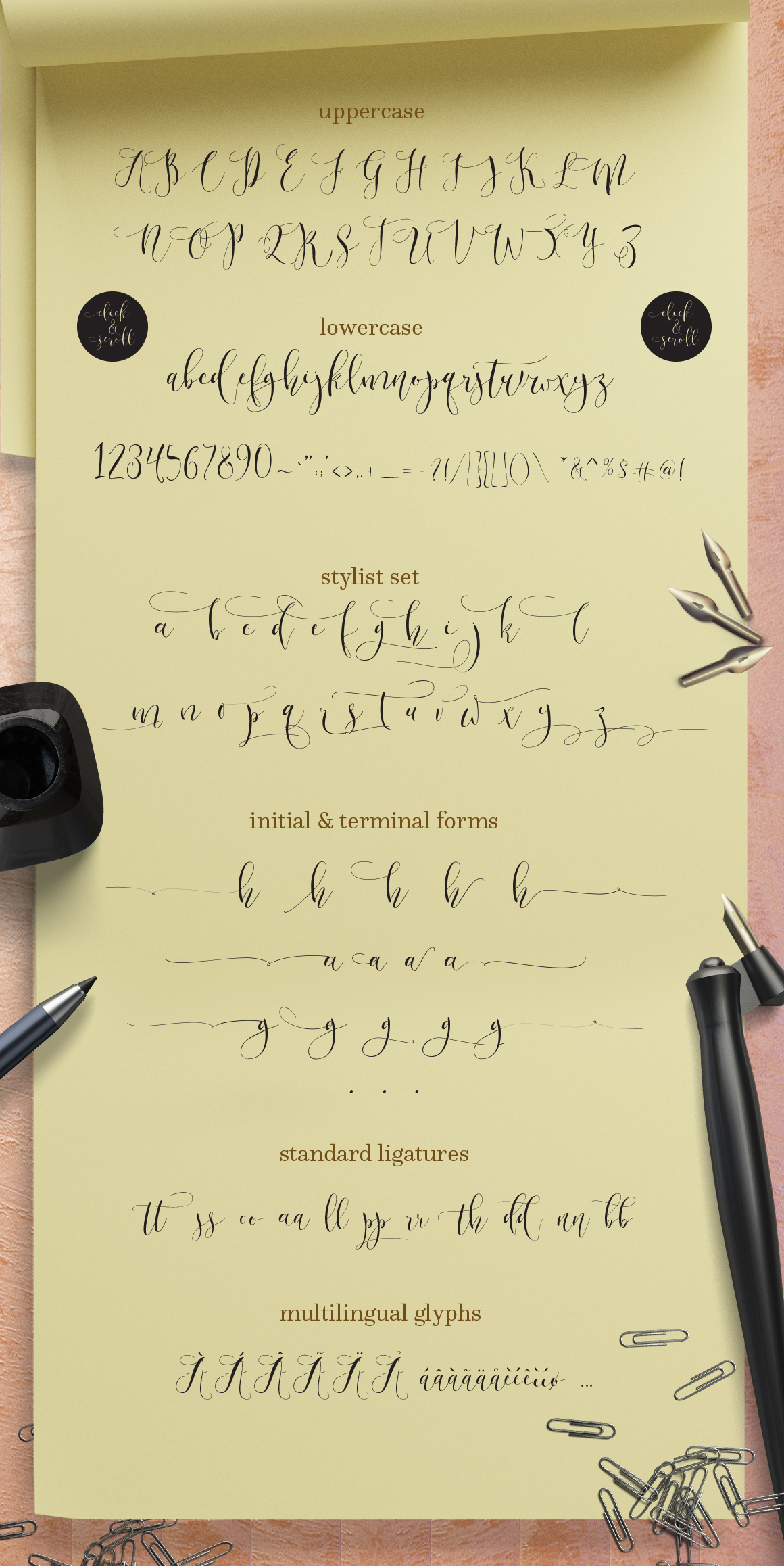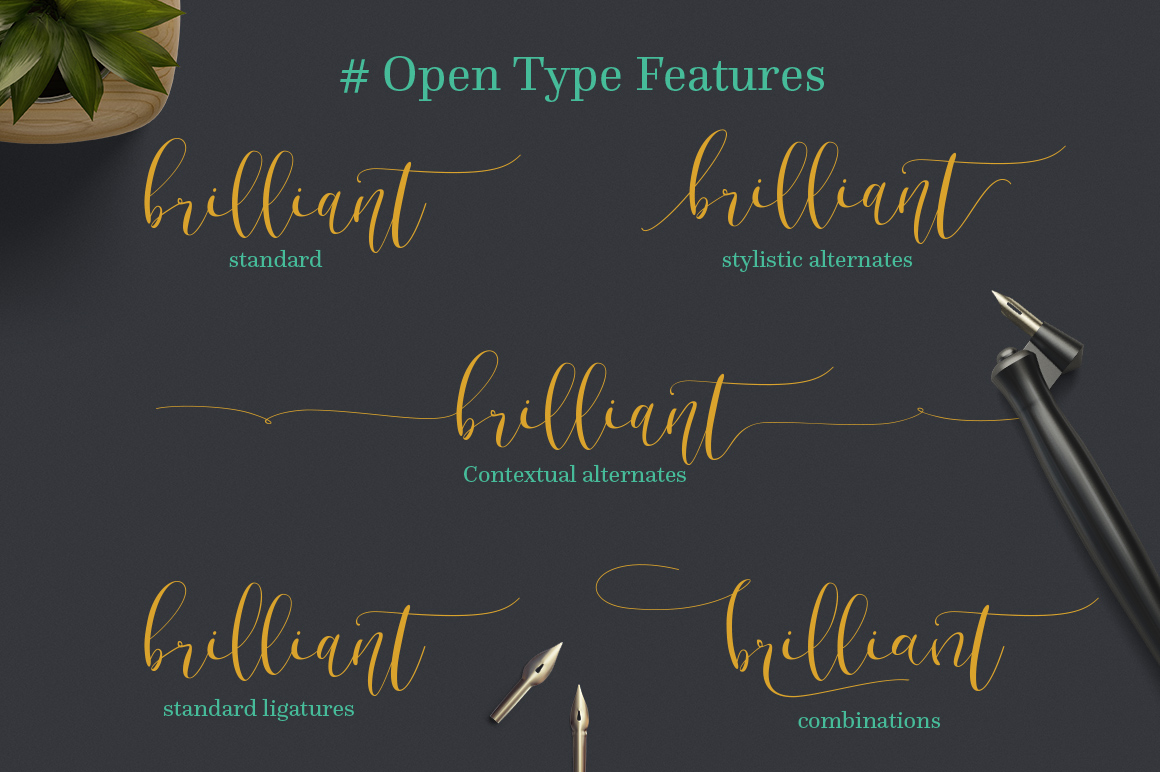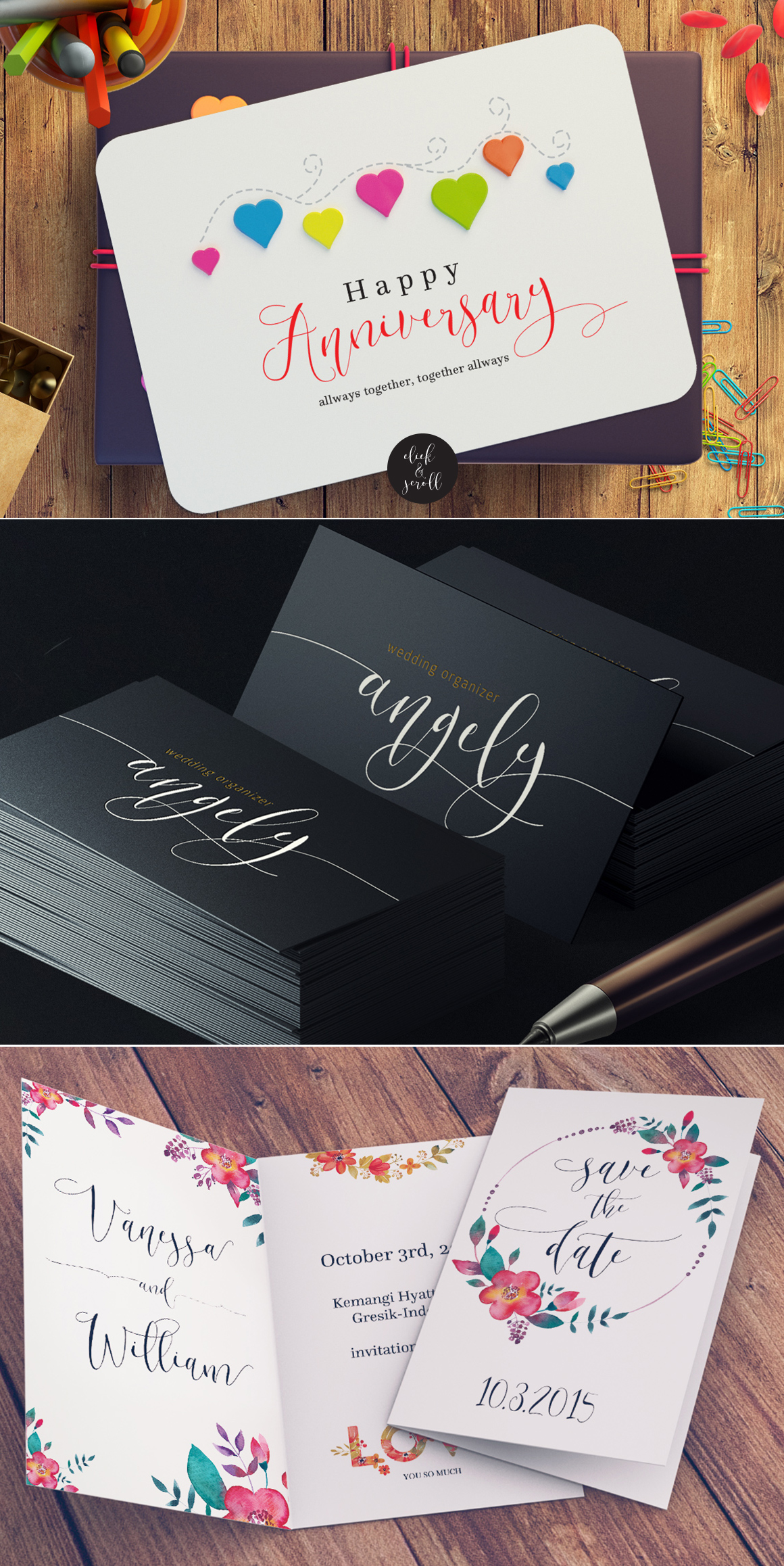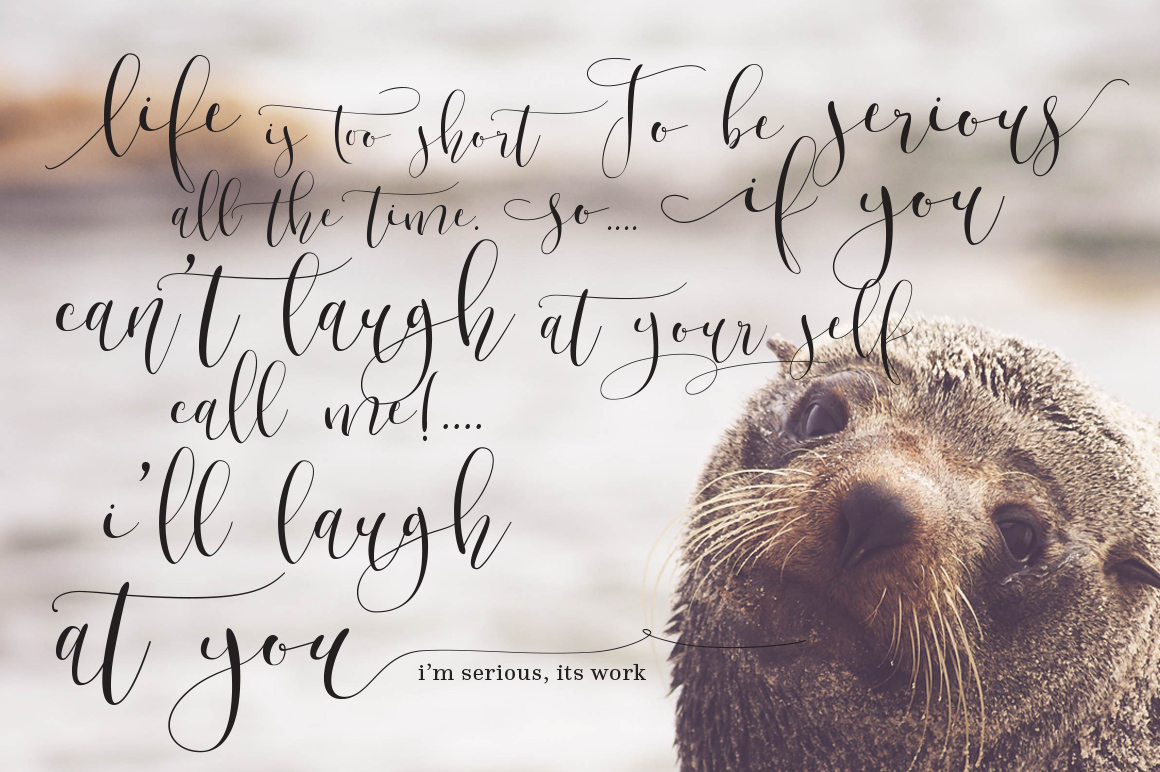
Introduction to Melika Script Font
One such resource is the Melika Script Font, a gorgeous and stylish copperplate handwritten script that’s quickly become a favorite among designers. With its modern and free-flowing lines, Melika is the perfect choice for adding a touch of elegance and sophistication to your designs and creative projects.
Key Features of Melika Script Font
- High-quality design resource ideal for creative projects requiring elegant and sophisticated text.
- Features a beautiful, handwritten script style with intricate details and flourishes, adding a touch of sophistication to any design.
- Designed to be highly legible, even at small font sizes, making it suitable for a variety of applications, from invitations to digital signage.
Honest Review: Melika Script Font
I recently stumbled upon the Melika Script Font, and I’m excited to share my thoughts on this high-quality design resource. The font is perfect for adding a touch of elegance to your creative project, whether it’s a logo, brochure, or website.
What works well: ✨ The font is incredibly versatile, with a wide range of styles and weights to choose from. The transparent background makes it easy to overlay on any image or background, giving you complete control over the design. The free download is also a huge bonus, making it accessible to designers of all levels.
- Wide range of styles and weights
Overall, I’m really impressed with the Melika Script Font. It’s a great addition to any designer’s toolkit, and I’d definitely recommend it for any creative project that needs a touch of sophistication.
To get the most out of the Melika Script Font, use it for titles, headings, and other design elements that require a high-end, creative look. Common use cases include wedding invitations, social media graphics, and branding materials.